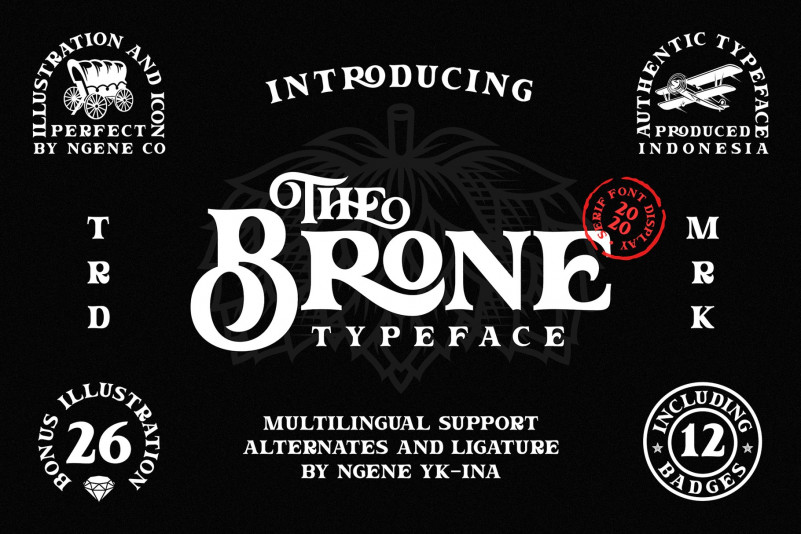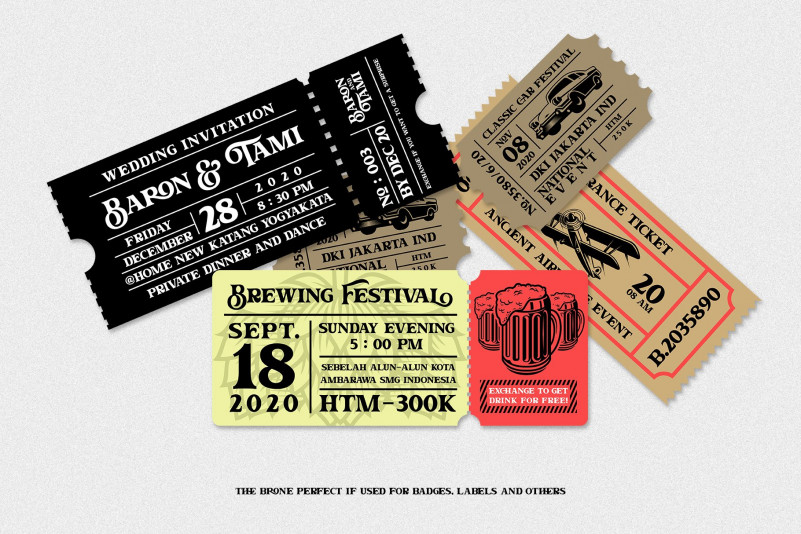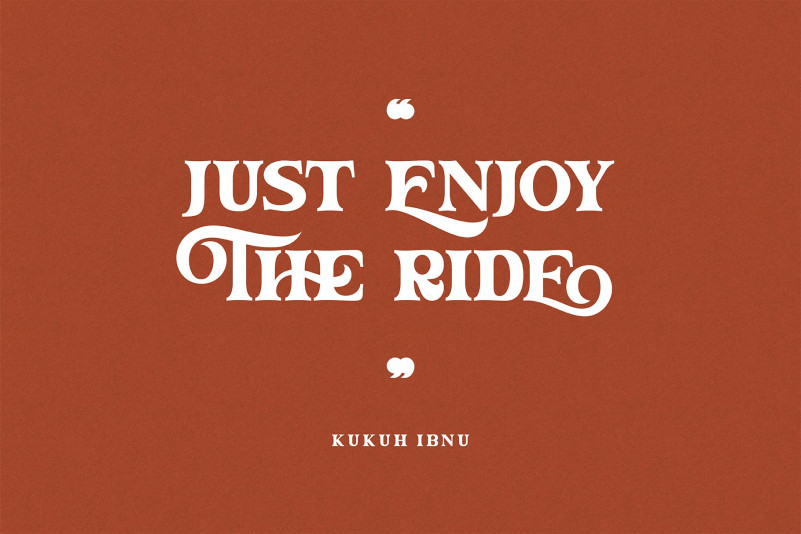
The Brone Font
The Brone is a type of vintage font that is amazing and elegant. Inspired by classical western culture, this font is perfect to be integrated into your designs, especially in vintage or modern designs. With bonus illustrations in this package, this font is great for logos, badges, branding, posters, and more. This font is equipped with opentype features for fonts and illustrations, as well as Adobe Illustrator and EPS formats for badge packages and also many alternative styles to enhance your design.